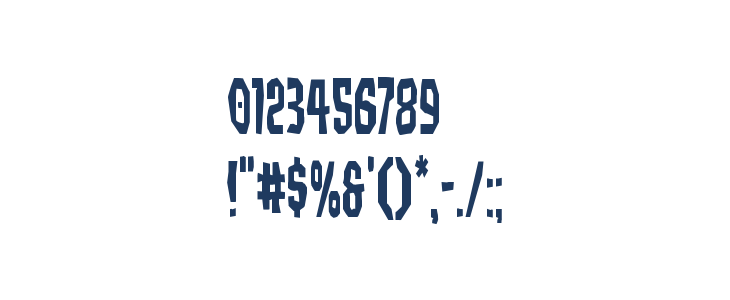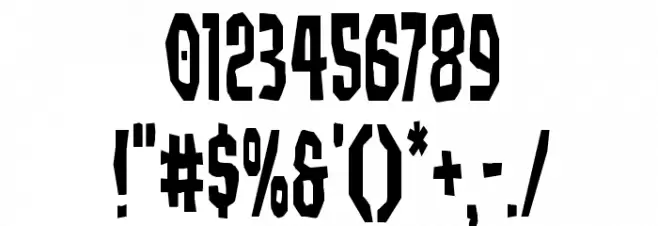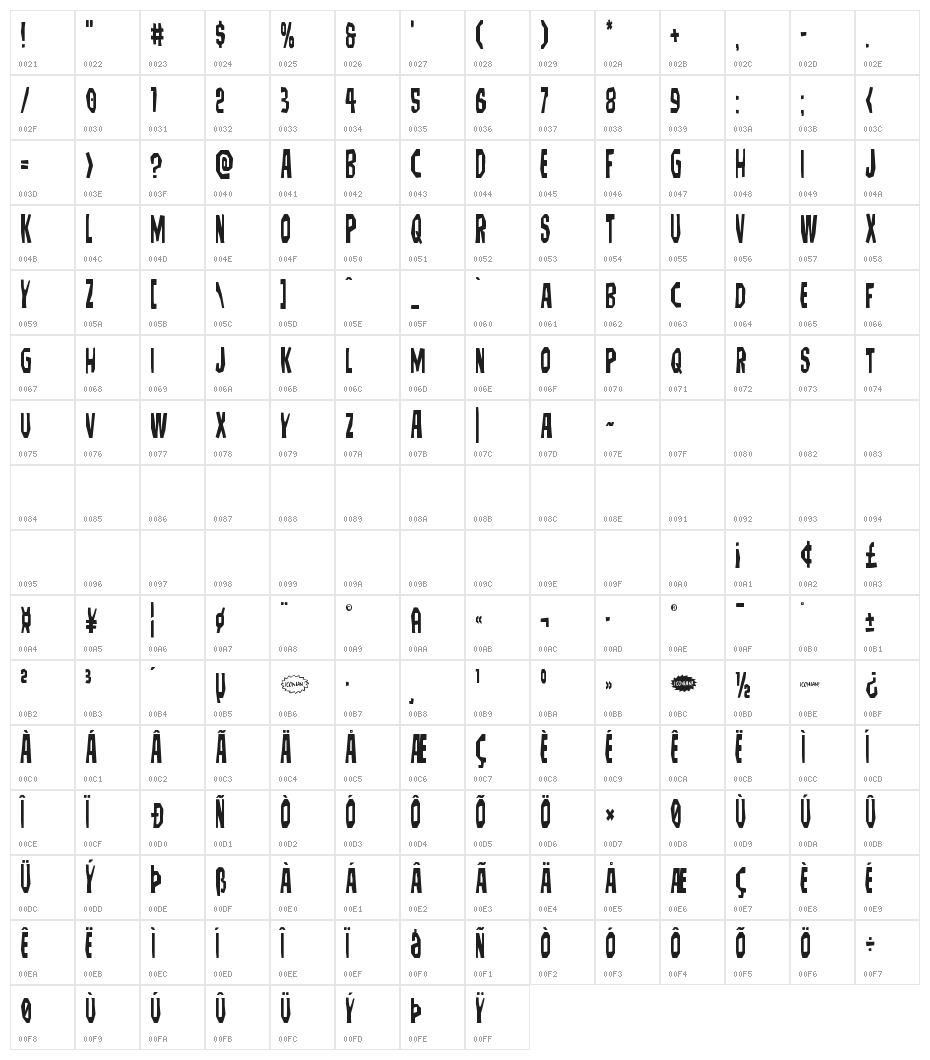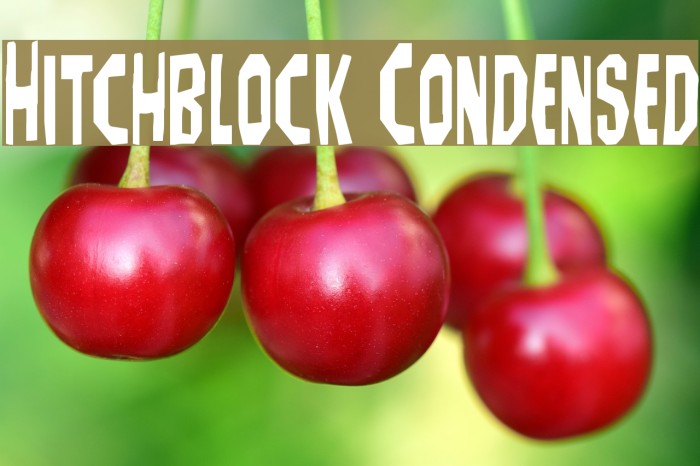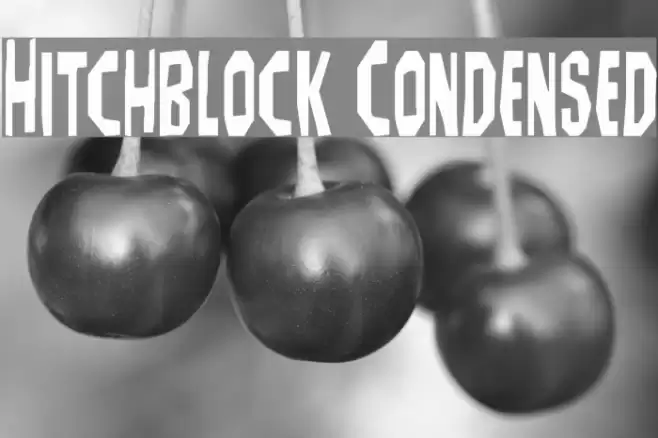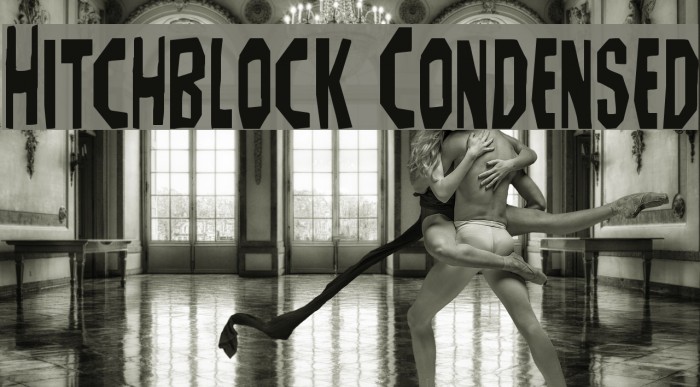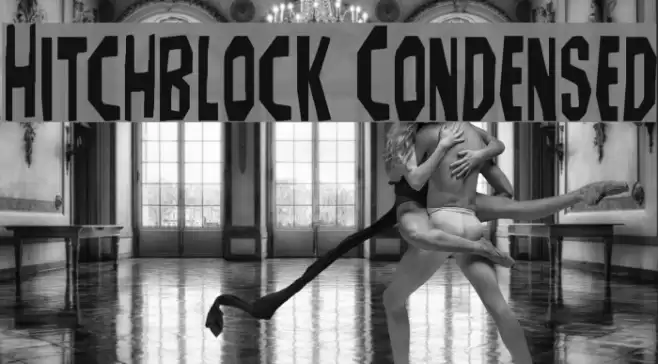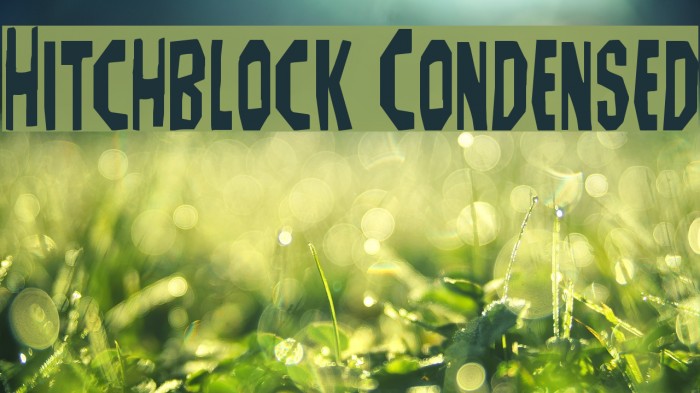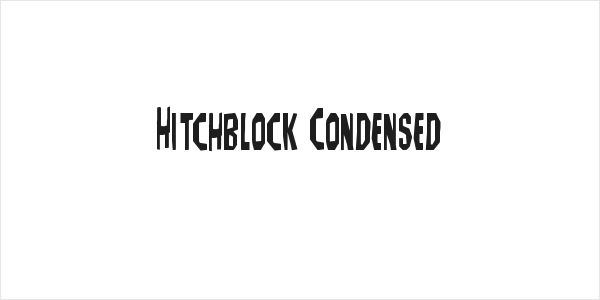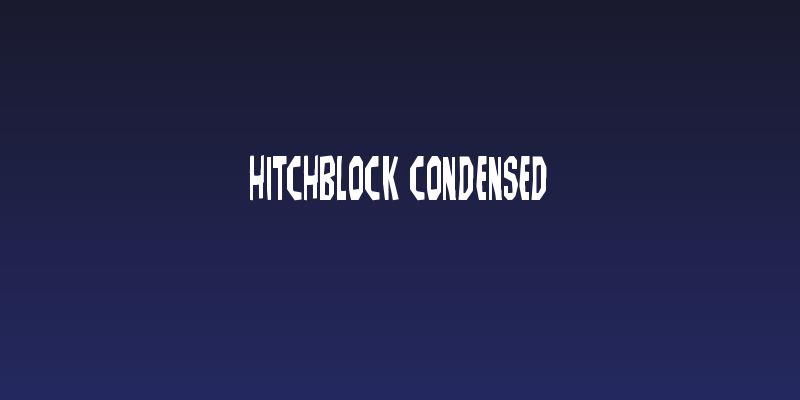
Hitchblock Condensed Font
Hitchblock Condensed Description
This font features a bold and condensed style with a strong geometric influence. The characters are tall and narrow, giving a striking and impactful appearance. The uppercase letters are particularly elongated, which enhances the condensed nature of the font. The strokes are consistent in width, providing a uniform look across all characters. The numbers and special characters maintain the same boldness and geometric style, ensuring cohesion throughout. This font is ideal for making a statement, with its bold presence and clear legibility.
| Proposed Projects | Ideal for posters, headlines, branding, and any design requiring a strong visual impact. |